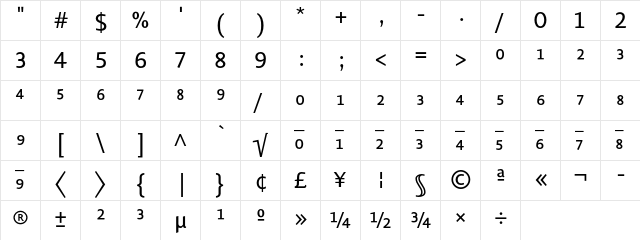
Lisboa Expert Regular
Design Context for Lisboa Expert Typeface
Lisboa Expert is a composed and adaptable typeface that performs quietly and consistently across a wide range of design contexts.
Pro Tip: Use Lisboa Expert in both headline and body roles to test its range before committing to a single application.